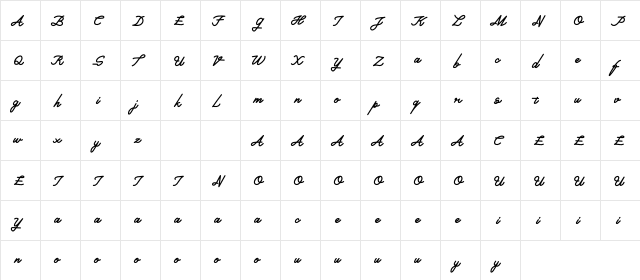
Piciaw Script
| Style | Script |
| Foundry | freeject.net |
| Designer | miftahul huda |
Design Context for Piciaw Typeface
Piciaw brings a calligraphic fluidity to the page — its connecting strokes and expressive curves give it an unmistakably human quality.